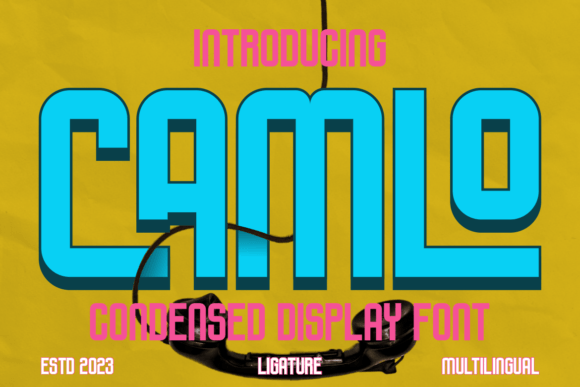
Introducing Camlo Font: The Modern Display Font You Need
I’ll never forget the moment I was working on a branding project for a trendy coffee shop. My client wanted a bold, eye-catching logo that would stand out on their packaging and marketing materials. I spent hours scouring the internet for the perfect font, but nothing seemed quite right. That was until I stumbled upon **Camlo Font**, a modern display font that instantly caught my attention. In this article, I’ll share my experience with Camlo Font, its features, and how to make the most of it in your designs.
First Impressions: What I Love About Camlo Font
So, what makes Camlo Font so special? Here are a few things that I absolutely love:
- ✨ Bold and Authentic: Camlo Font has a confident, modern feel that’s perfect for making a statement.
- ✅ Versatile: This font is suitable for a wide range of branding projects, from logos and template designs to product packaging and more.
- 💡 Easy to Read: Despite its bold nature, Camlo Font remains surprisingly legible, even at smaller sizes.
A Few Quirks to Consider
No font is perfect, and Camlo Font is no exception. Here are a few things to keep in mind:
- 🤔 Limited Use in Body Text: While Camlo Font is amazing for headlines and titles, it’s not the best choice for body text. It’s a display font, after all!
- ⚠️ Some Glyphs Require Manual Adjustment: Depending on your design software, you may need to manually adjust some glyphs to get the best results.
- Experiment with OpenType features like Stylistic Alternates to add some extra flair to your text.
The Story Behind Camlo Font
Camlo Font was designed with the modern brand in mind. Its creator, a talented typographer, aimed to craft a font that was both bold and authentic. Inspired by the urban landscape and contemporary design trends, Camlo Font is the perfect choice for designers looking to make a statement.
- Q: Is Camlo Font suitable for body text?
- A: No, Camlo Font is a display font and works best for headlines, titles, and short text passages.
- Q: Does Camlo Font support OpenType features?
- A: Yes, Camlo Font supports OpenType features, including stylistic alternates and glyphs.